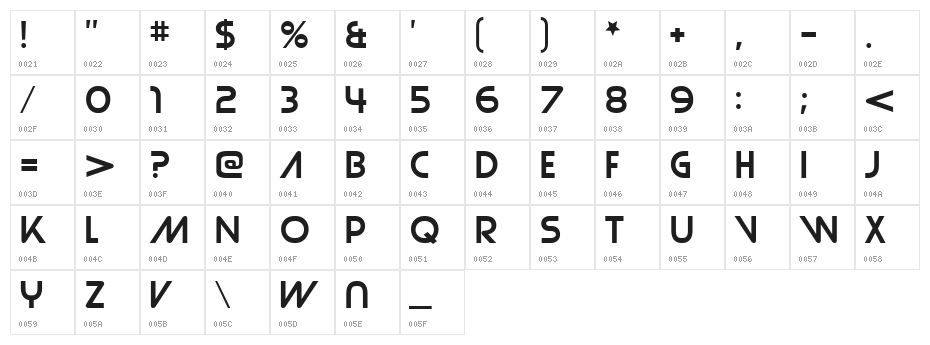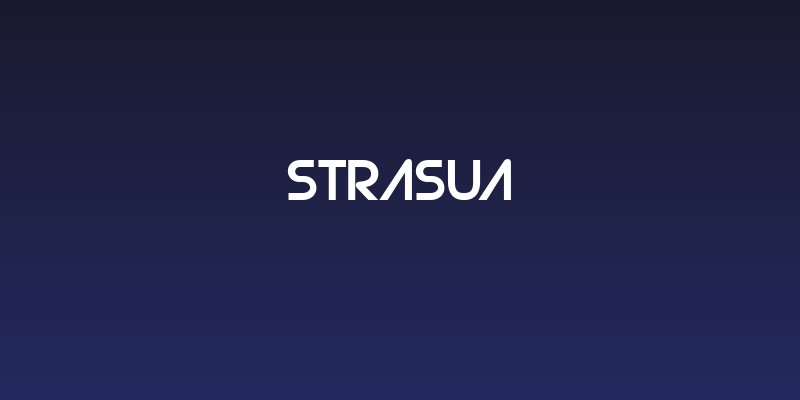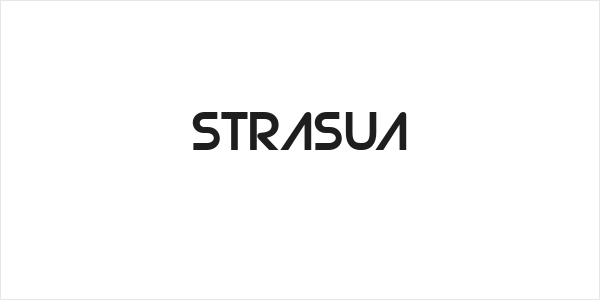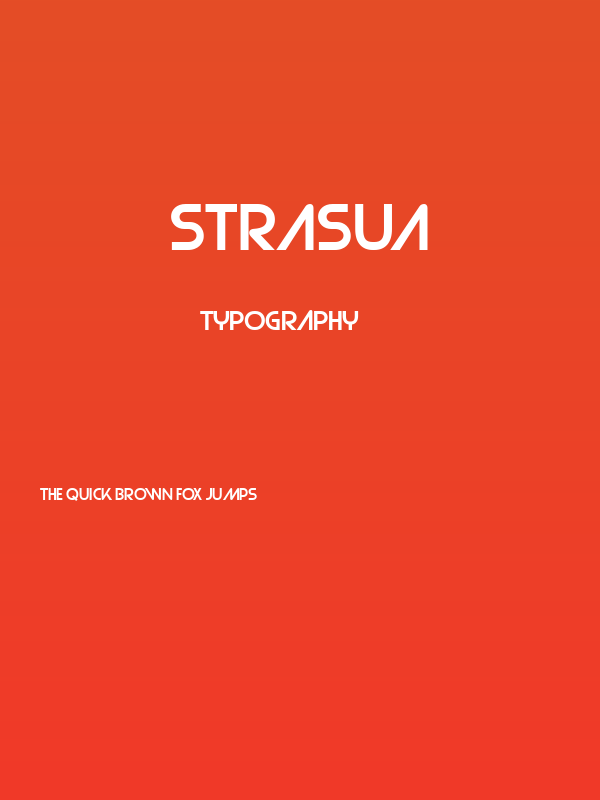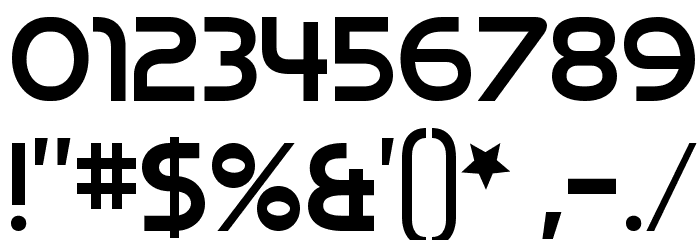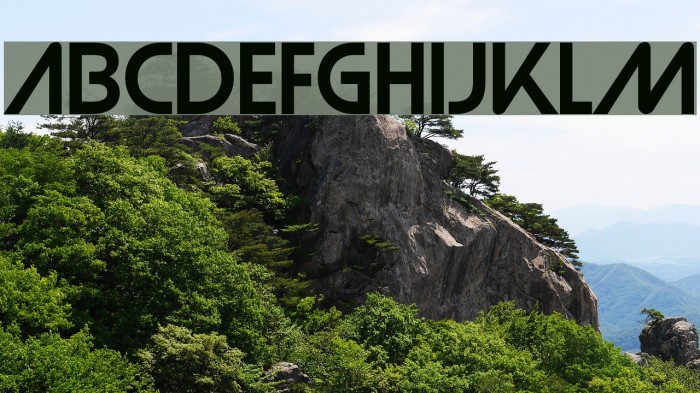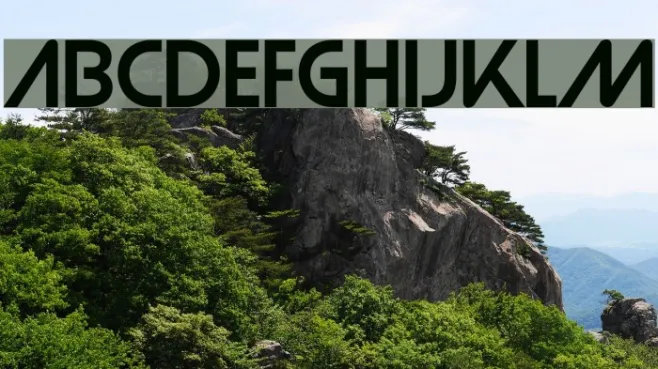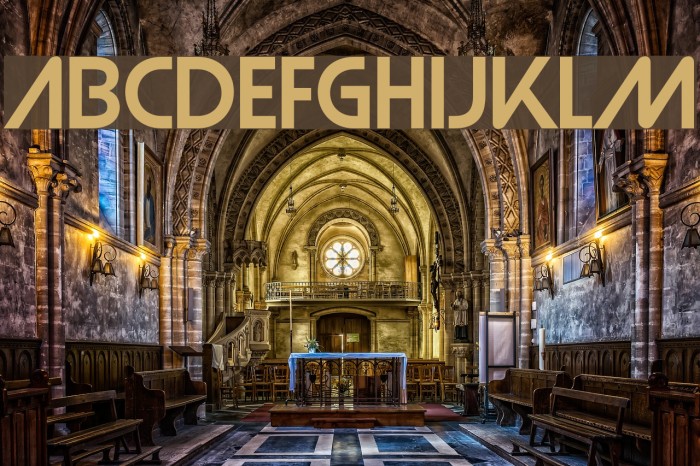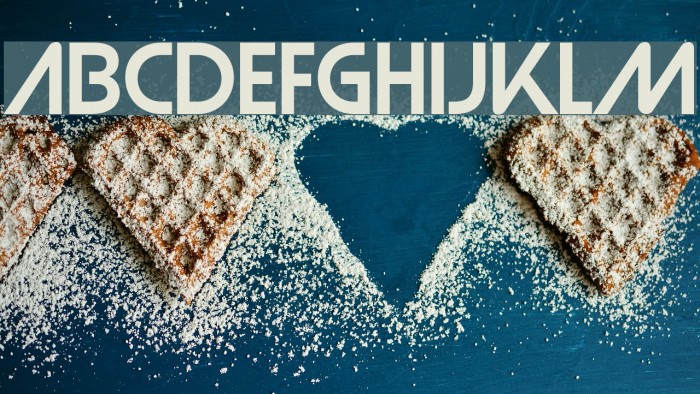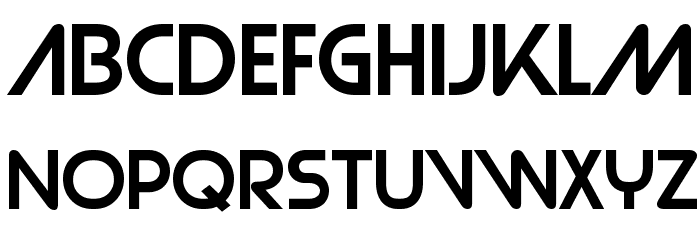
Strasua Font
Strasua Description
This font features a bold, geometric design with sharp angles and clean lines, creating a modern and futuristic appearance. The uppercase letters are distinct with a unique angular cut, particularly noticeable in characters like 'A', 'V', and 'W'. The numbers maintain the same boldness and geometric style, ensuring consistency across all characters. Special characters are designed to match the overall aesthetic, making them suitable for a variety of design applications. The font's strong presence and clear readability make it ideal for impactful headlines and branding projects.
| Proposed Projects | Ideal for branding, headlines, posters, and modern digital interfaces. |